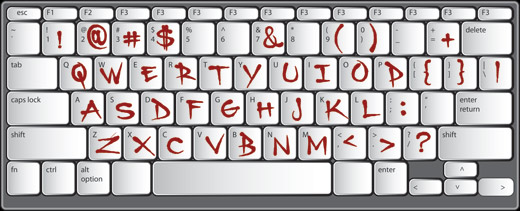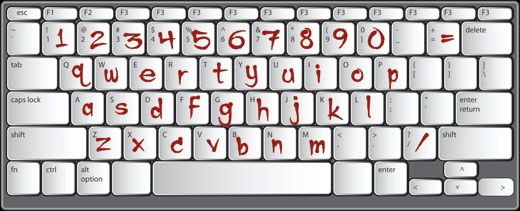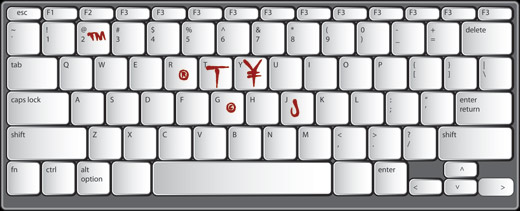
Standard Cap™
Standard Cap™ is rough font made to look like it was wriiten with a "standard cap" (the cap that comes on a krylon, rusto or other spraycan). The font includes full uppercase & lowercase alphabets as well as a full array of numbers, symbols, punctuation etc.